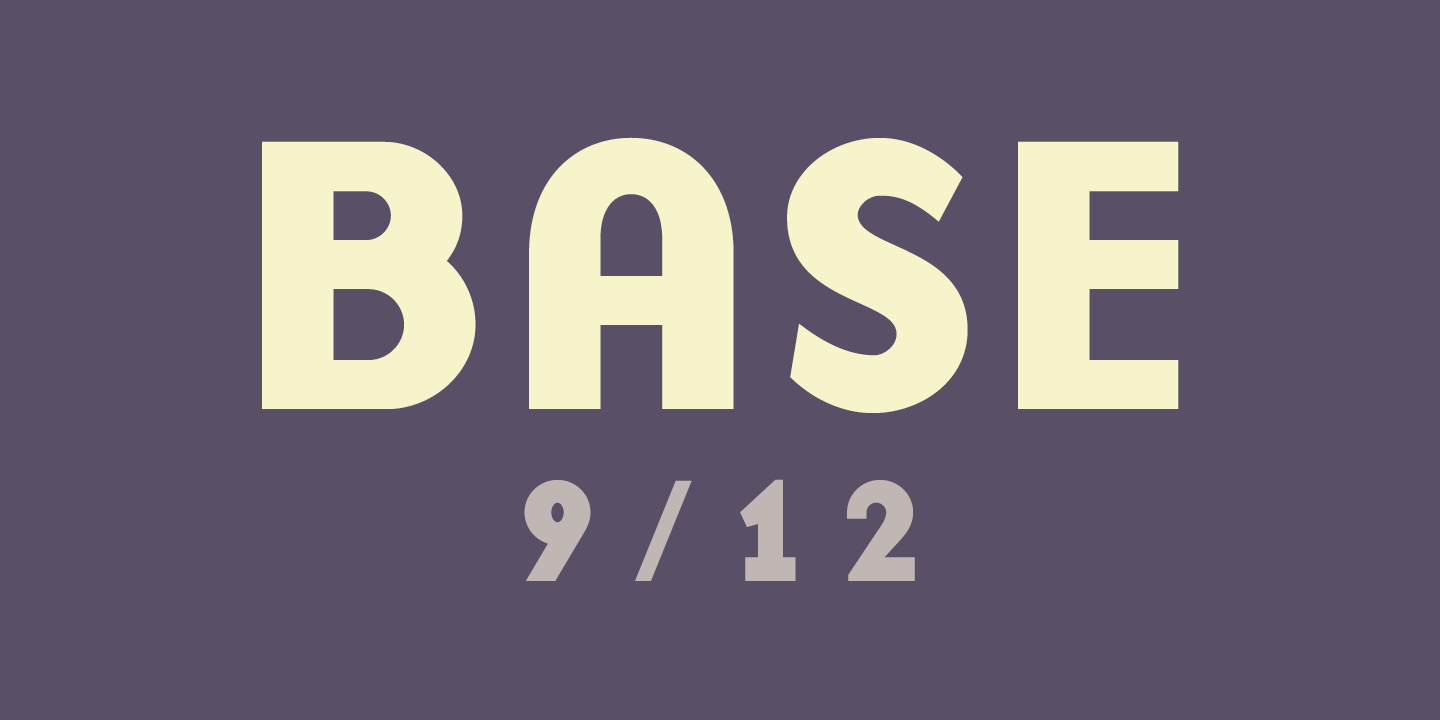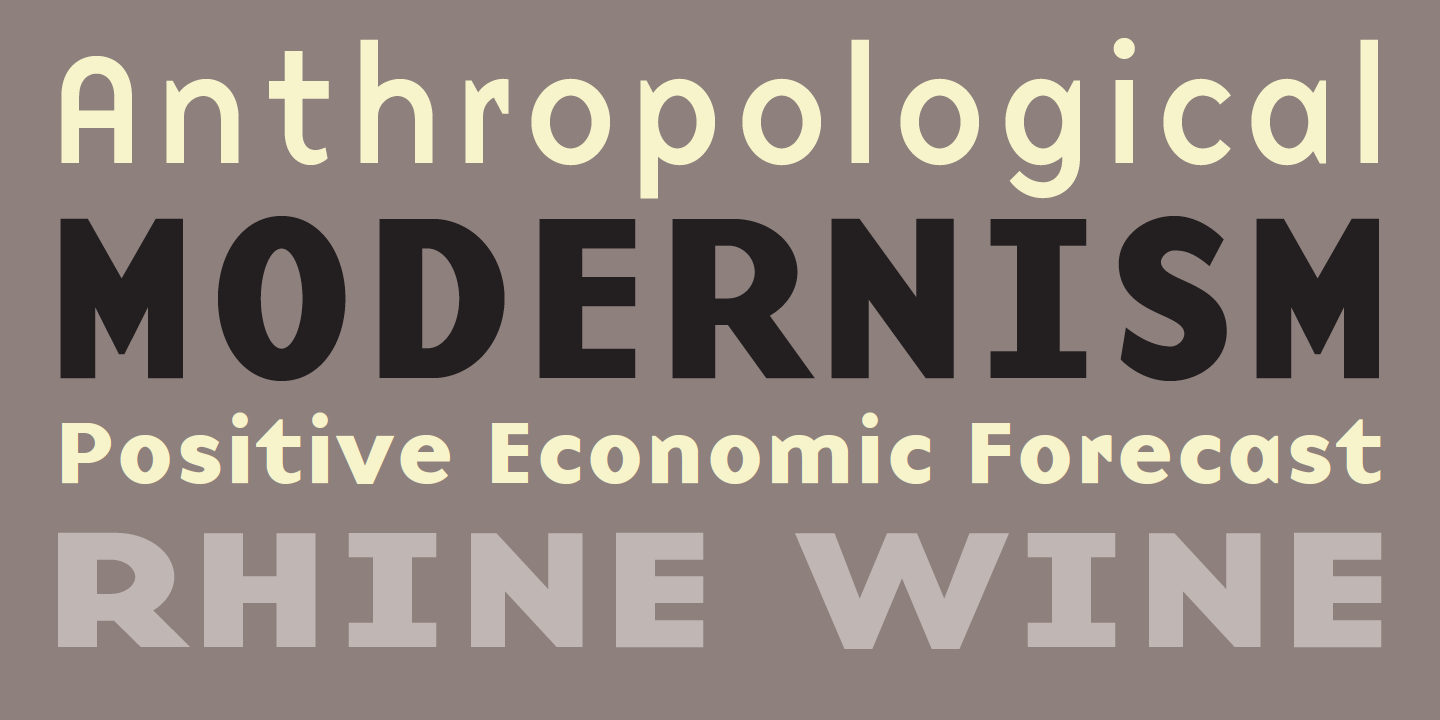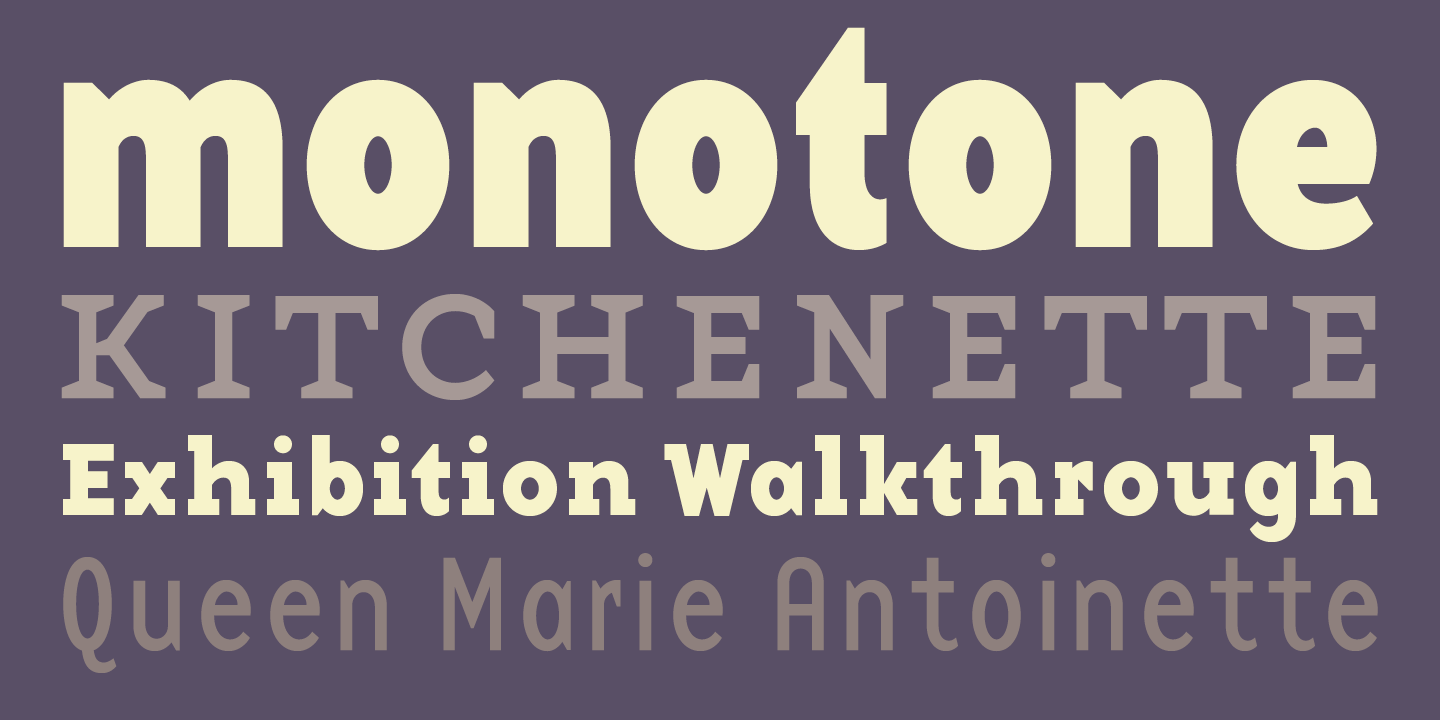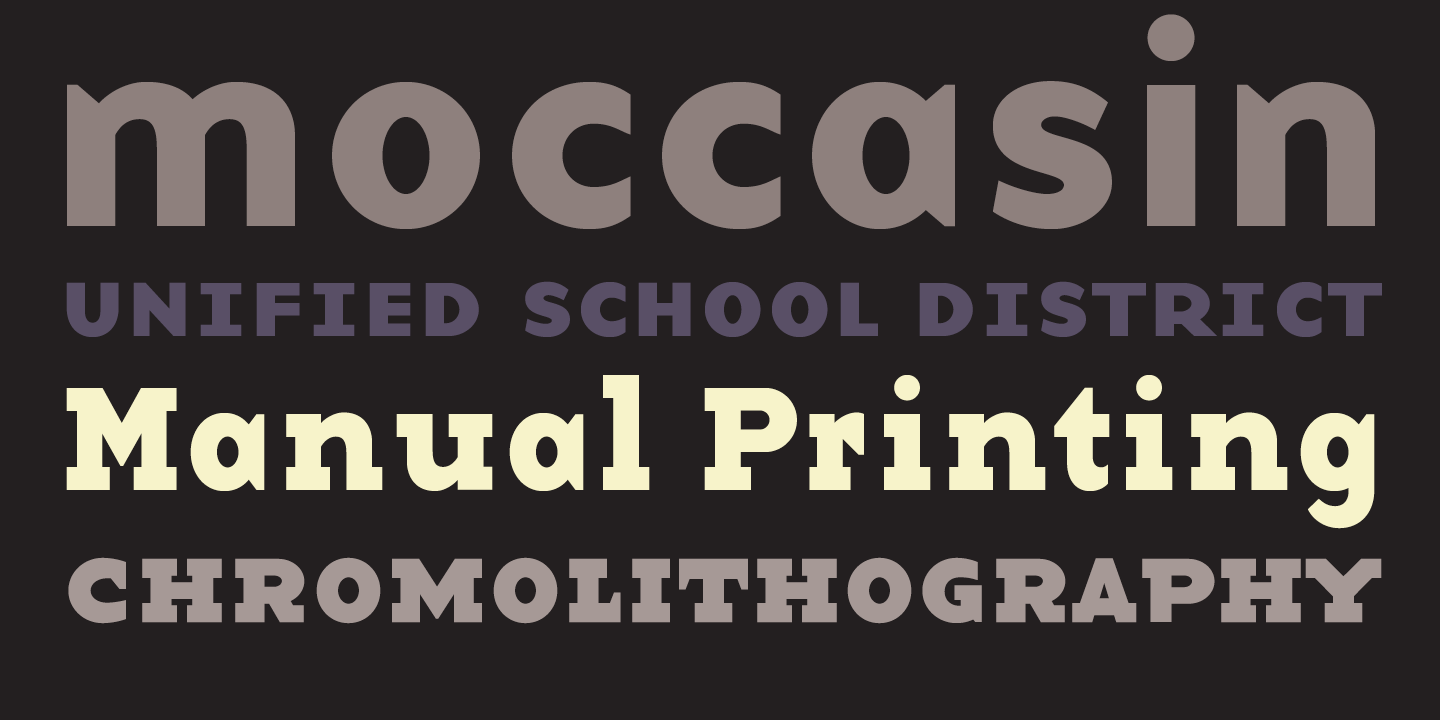
The Base fonts consist of three families; two families based on 12 point screen fonts (one serif and one sans serif family) named Base-12, and one family based on 9 point screen fonts named Base-9, consisting of a total of 24 individual faces.
When Base was designed in 1994-95, the goal was to create a comprehensive family of screen fonts with companion printer fonts, somewhat similar in purpose to Matthew Carter’s well known typeface Verdana. In the design process of these typefaces, the screen fonts largely dictated the look of the printer fonts, rather than the other way around, because outline fonts are more flexible and are easier to adapt. For example, the proportions of the screen font determined the exact character widths within which the outline characters were adjusted to fit. Usually this process is reversed—character widths are normally adjusted to fit around the outline characters. Therefore, certain compromises had to be made, giving Base 9 & 12 a unique character reminiscent of the early computer technology era.